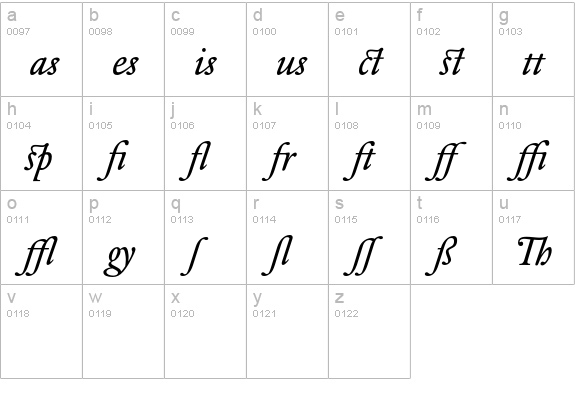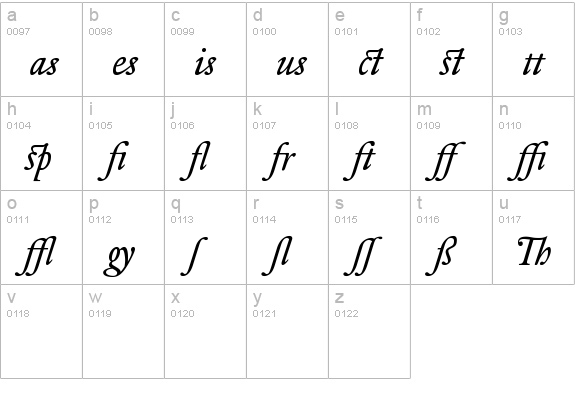
DTLElzevirTBookAlternate-Italic is a distinctive, italic variant in the DTLElzevirTBookAlternate typeface family \xE2\x80\x94 well suited to design and typography projects.
Introducing DTLElzevirTBookAlternate-Italic font, a beautifully crafted typeface that exudes elegance and sophistication. Its italic style adds a touch of flair and sophistication to any design project. This font is perfect for creating stunning headlines, invitations, logos, and more. The best part? DTLElzevirTBookAlternate-Italic font is available for free download at FontsMarket.com. You can easily enhance your creative projects with this exquisite font without any cost. Its sleek and modern design will elevate your work and leave a lasting impression on your audience. Don't miss out on the opportunity to elevate your designs with DTLElzevirTBookAlternate-Italic font. Download it for free today and add a touch of style and sophistication to your projects.